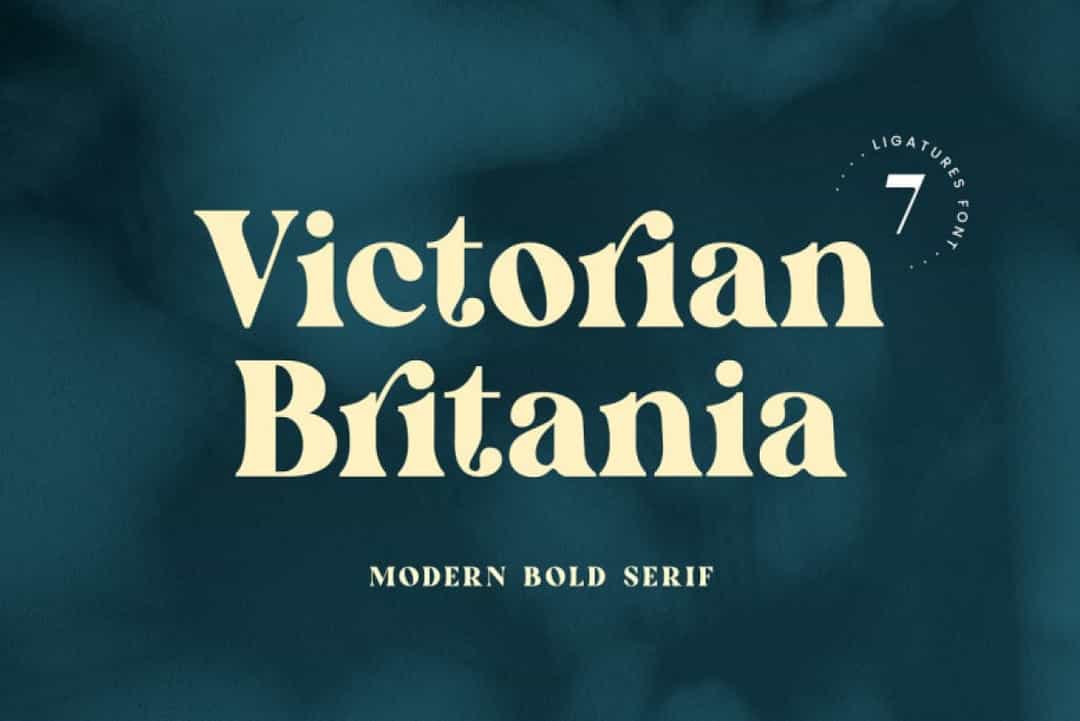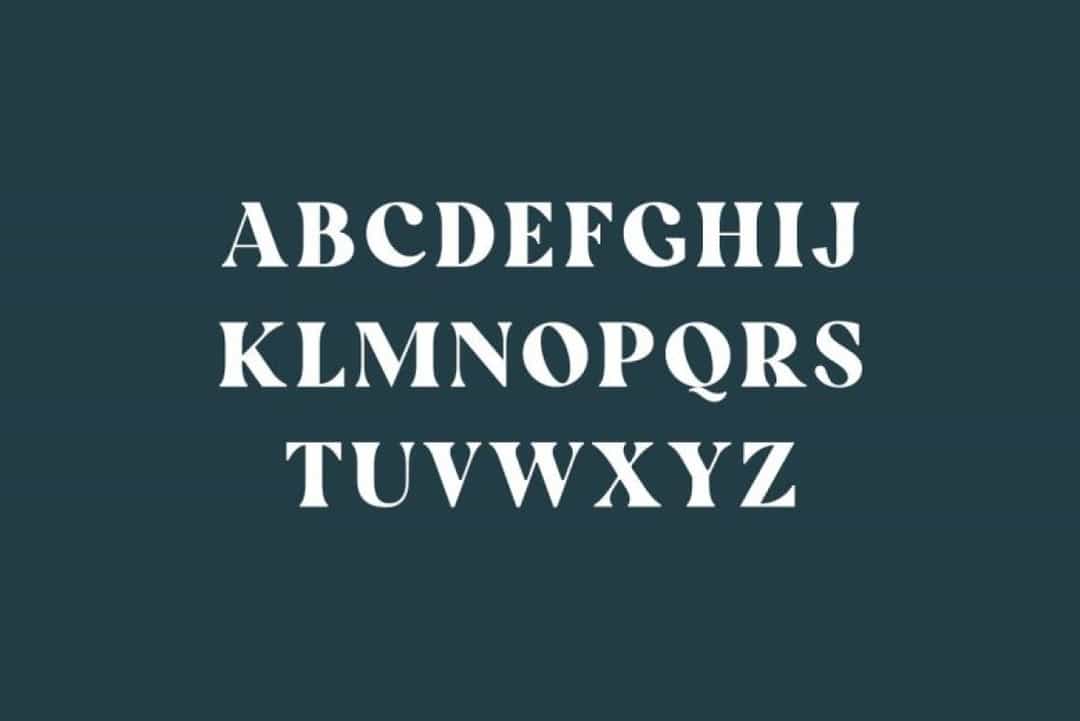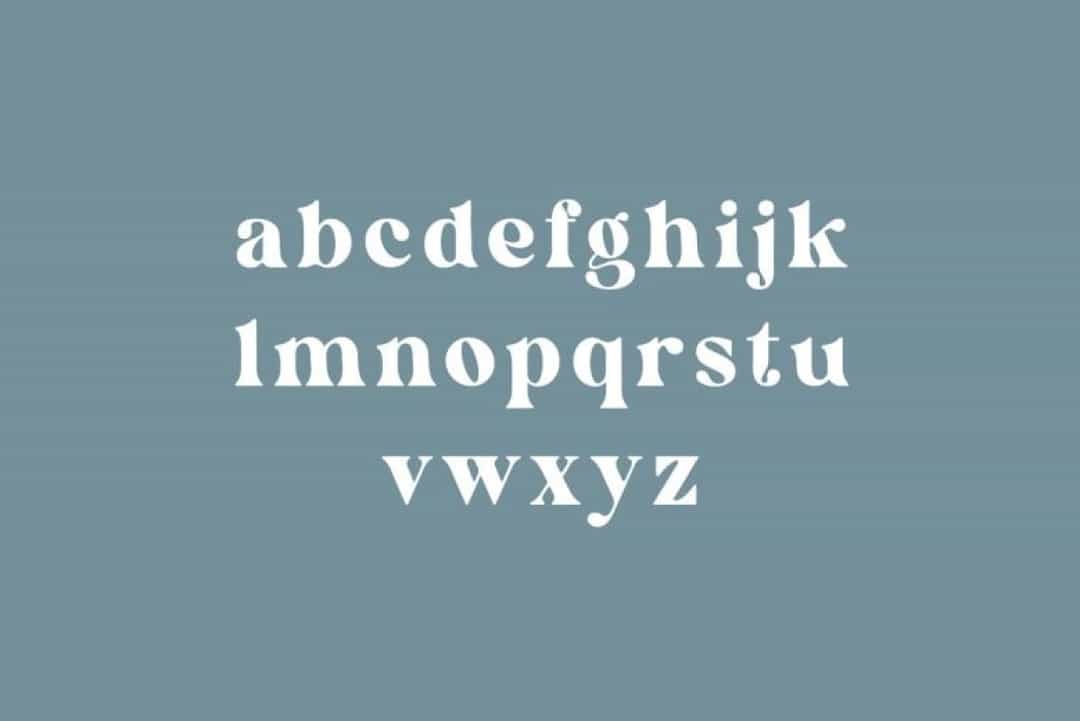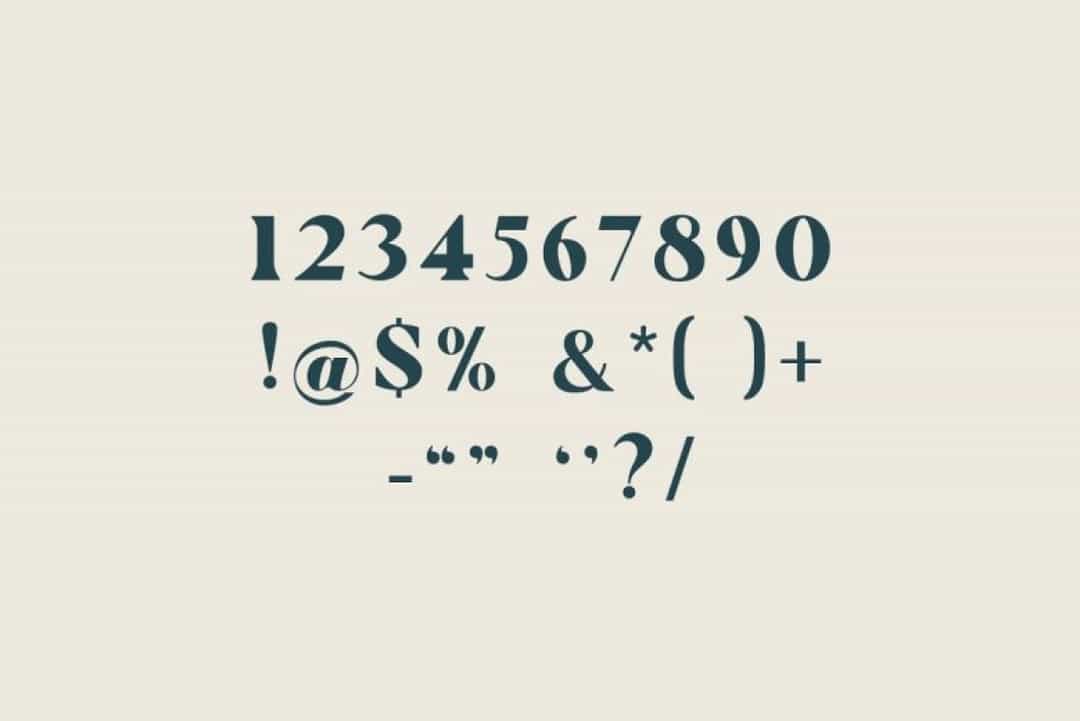
Victorian Britania font is our brand new offering and is a modern, bold serif typeface with elegance, sophistication and modernism. Perfect for stationary use, signature creation, logo wedding design and typography quotes used as book, magazine covers or headers on websites as well as branding, packaging design in fashion related editorial work that blends feminine with masculine qualities.